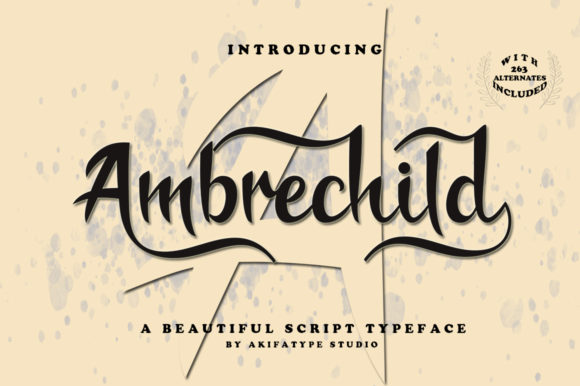
The Ambrechild Script Font: A Playful yet Elegant Design Companion
I’ll never forget the time I was working on a project for a children’s party invitation. I had a clear vision of a whimsical, elegant design, but I was struggling to find the perfect font to bring it all together. That’s when I stumbled upon the Ambrechild script font. Its fun, classic feel instantly resonated with me, and I knew I had found the perfect match. In this article, I’ll share my experience with the Ambrechild font, its features, and how to make the most of it in your designs.
An Honest Review of Ambrechild Script Font
• ✨ Highly legible: The Ambrechild font is incredibly easy to read, making it perfect for body text or headings.
• ✅ Fun and classic feel: The font’s playful yet elegant vibe makes it suitable for a wide range of design projects, from children’s party invitations to wedding stationery.
• 💫 Versatile: Ambrechild works well in both digital and print formats, making it a great addition to any designer’s font library.
While the Ambrechild font is exceptional, there are a few minor quirks to be aware of:
• 🤔 Limited character set: As with many script fonts, the Ambrechild character set might not be as extensive as some other fonts. However, it does include a range of glyphs and stylistic alternates to add variety to your designs.
• ⚠️ Kerning: Some users have reported issues with kerning, particularly when using the font at smaller sizes. However, this can often be resolved by adjusting the kerning settings in your design software.
The Backstory of Ambrechild Script Font
The Ambrechild script font was designed with the intention of creating a playful yet elegant typeface that’s perfect for a wide range of design projects. While the designer’s exact inspiration may be unknown, it’s clear that they drew from classic script fonts and infused them with a modern, whimsical feel.
Q: What is the Ambrechild script font best used for?
A: The Ambrechild script font is versatile and can be used for a wide range of design projects, from children’s party invitations to wedding stationery, and even luxury branding.
Q: Is the Ambrechild font suitable for body text?
A: Yes, the Ambrechild font is highly legible and can be used for body text. However, it’s recommended to use it at a minimum size of 10-12 points to ensure optimal readability.